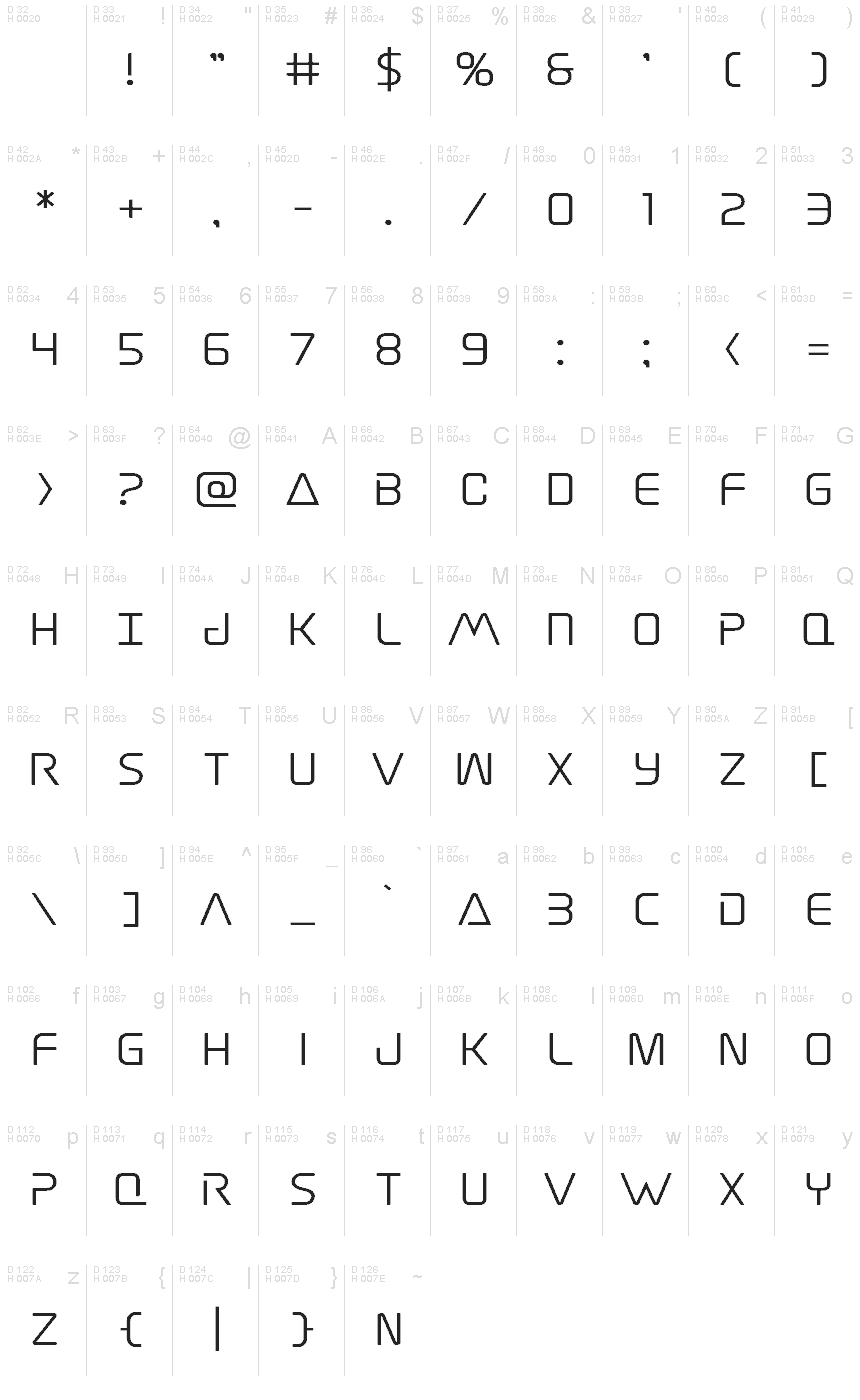
Elite Danger Semi-Bold Expand
Elite Danger font by Iconian Fonts is a futuristic display font characterized by its modern, geometric design and clean aesthetic. Its minimalistic style lends itself to contemporary applications, making it a popular choice for technology and gaming design projects.